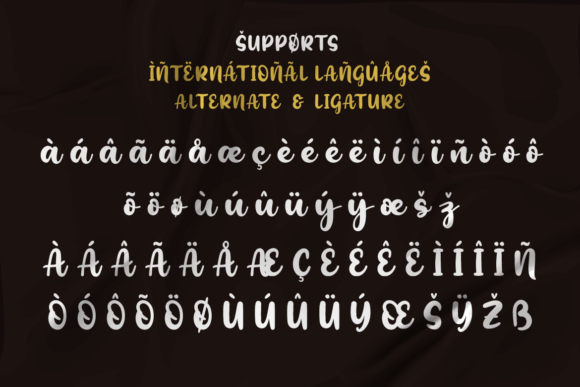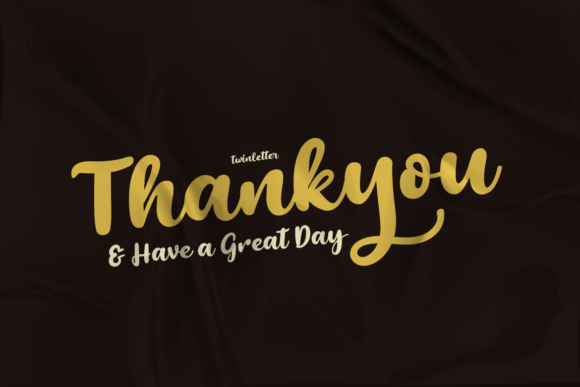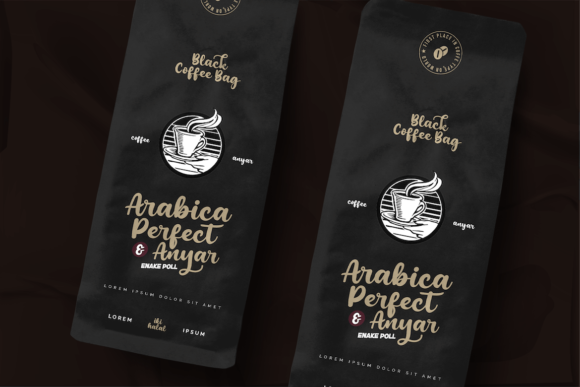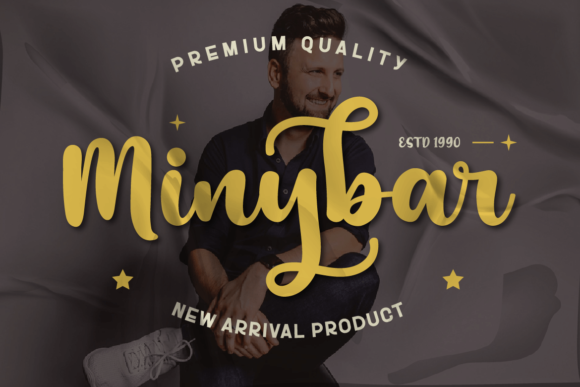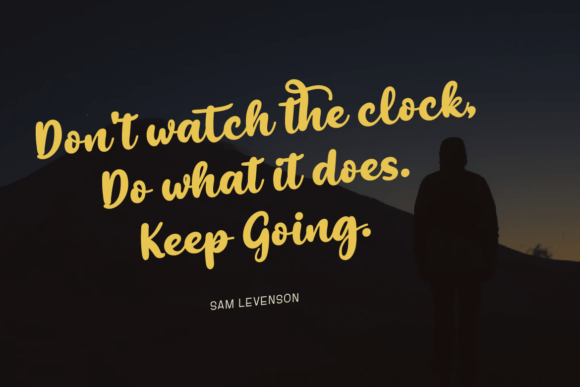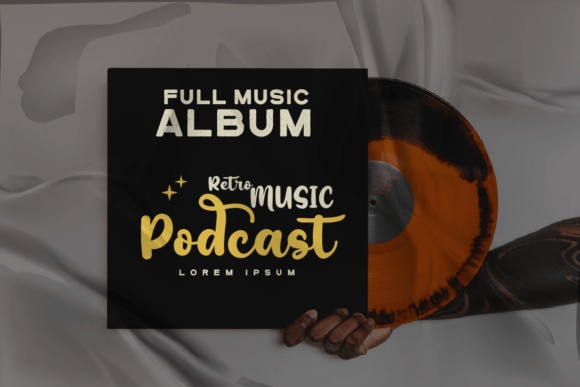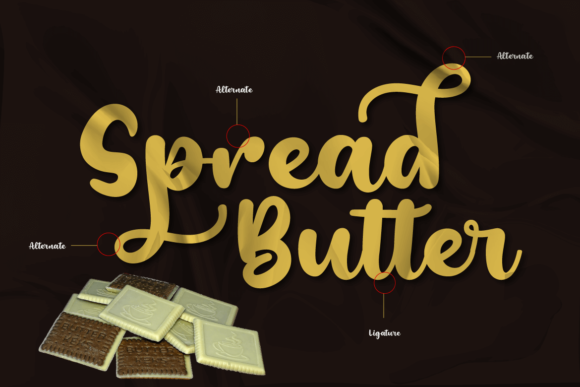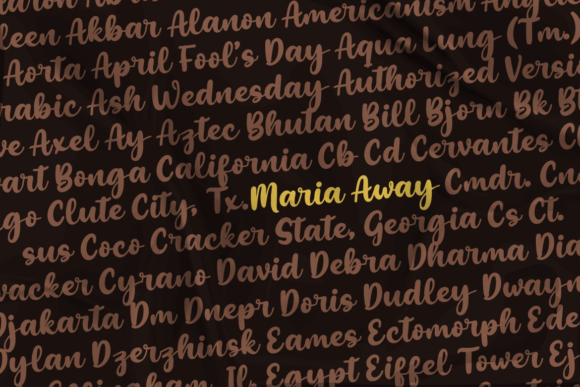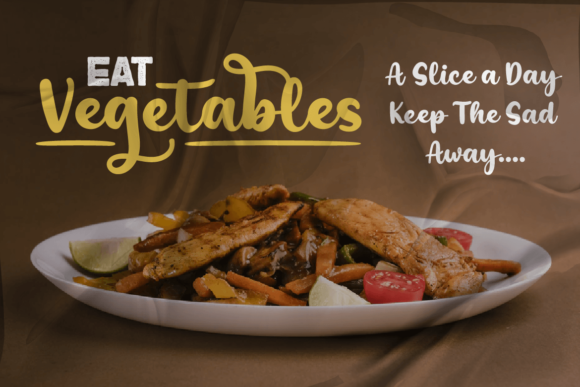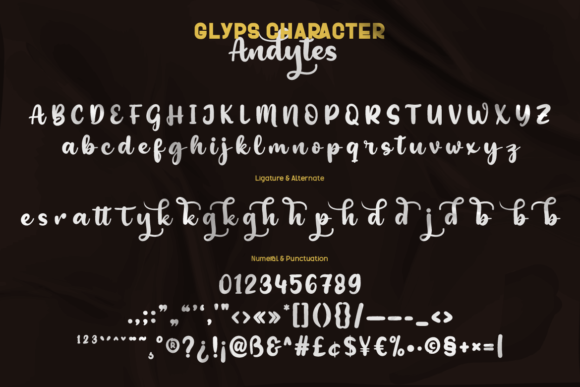
Andytes Font
About Andytes Font
Introducing Andytes, a gorgeous and bold handwritten font designed to add a stylish touch to your headlines and logotype projects. With its strong and confident letterforms, Andytes exudes a sense of dynamism and adds a touch of nostalgic character to your designs.
Andytes’ stunning and bold letterforms make a powerful statement. Each character is crafted with precision and attention to detail, creating a visually striking composition. The font’s handwritten style adds a personal and authentic feel to your designs, making them stand out with confidence.
One of the great features of Andytes is its PUA encoding, which means you can easily access all of the glyphs and swashes. This allows for even more customization and creativity in your designs, ensuring that you have full control over the final result.
Andytes’ bold and dynamic nature makes it the perfect choice for headlines and logotype projects. Whether you’re creating branding materials, advertisements, posters, or any other visual content that requires attention-grabbing typography, Andytes delivers. Its strong and confident appearance grabs the viewer’s attention and leaves a lasting impression.
The nostalgic character of Andytes adds an extra layer of charm to your designs. Its handwritten style evokes a sense of authenticity and familiarity, making a connection with your audience. The font’s bold and dynamic look brings a touch of energy and excitement, making your designs visually captivating.
No matter the project or context, Andytes has the potential to enhance any creation. Its gorgeous and bold design, combined with its PUA encoding, adds a stylish touch and creates a strong visual impact. Embrace the character of Andytes and confidently incorporate it into your designs, bringing a sense of nostalgia and confidence to your headlines and logotypes.
In summary, Andytes is a gorgeous and bold handwritten font that adds a stylish touch to your headlines and logotype projects. Its strong, confident, and dynamic letterforms create a nostalgic character and leave a lasting impression. With its PUA encoding, you have full access to the glyphs and swashes, allowing for unlimited customization. Embrace the power of Andytes and let it bring your designs to life with its bold and stylish presence.